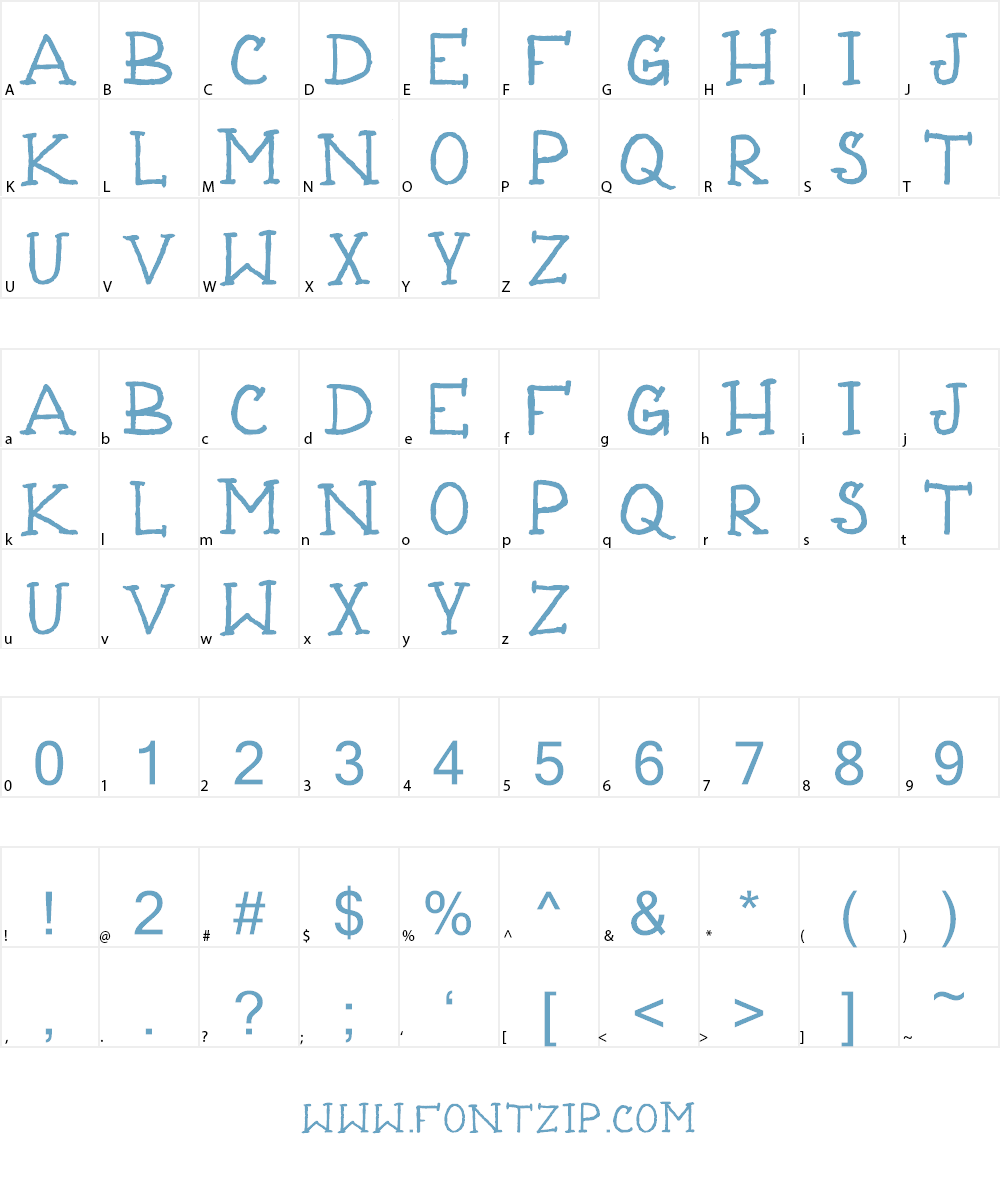
This is a thinline tattoo font, based on classic handstyles of gentlemen like Sailor Jerry and Don Ed Hardy. Perfect for all your traditional tattoo flash sheets!